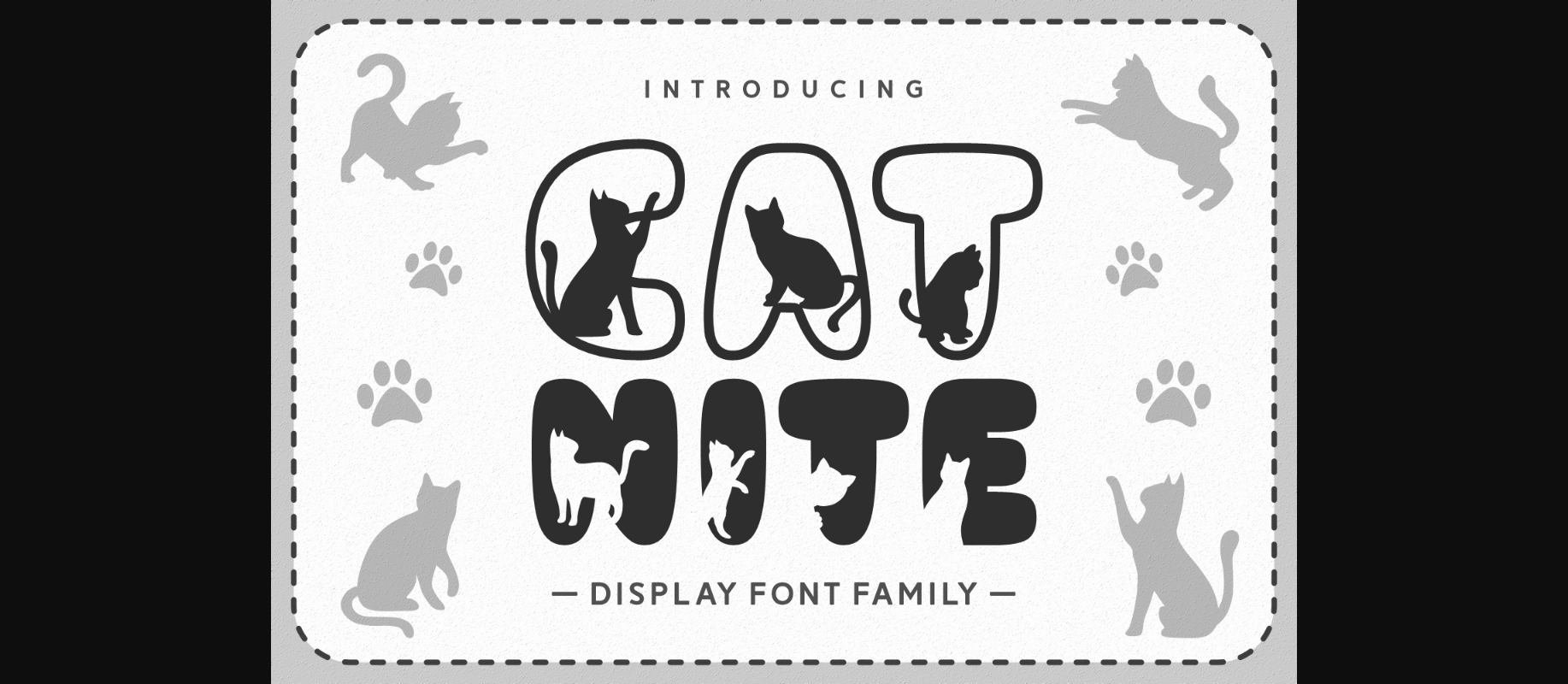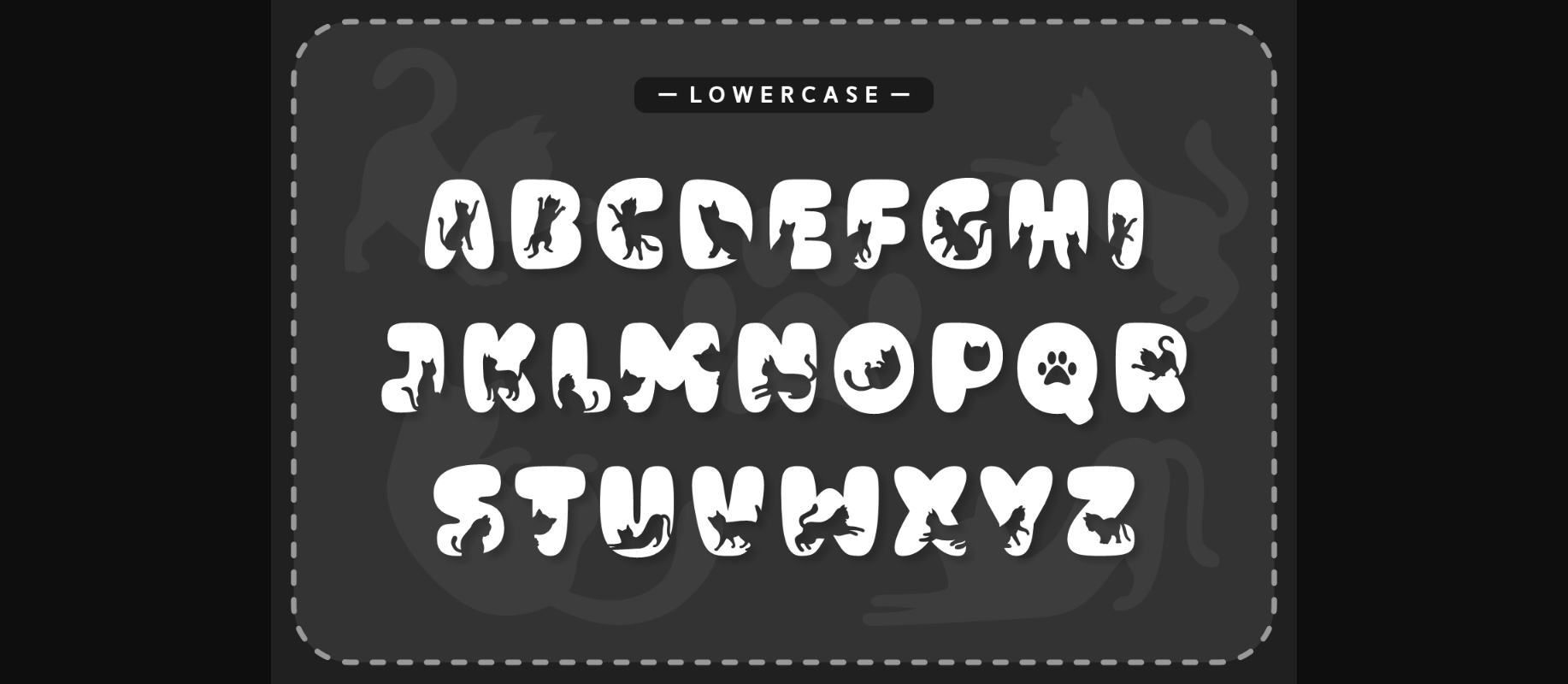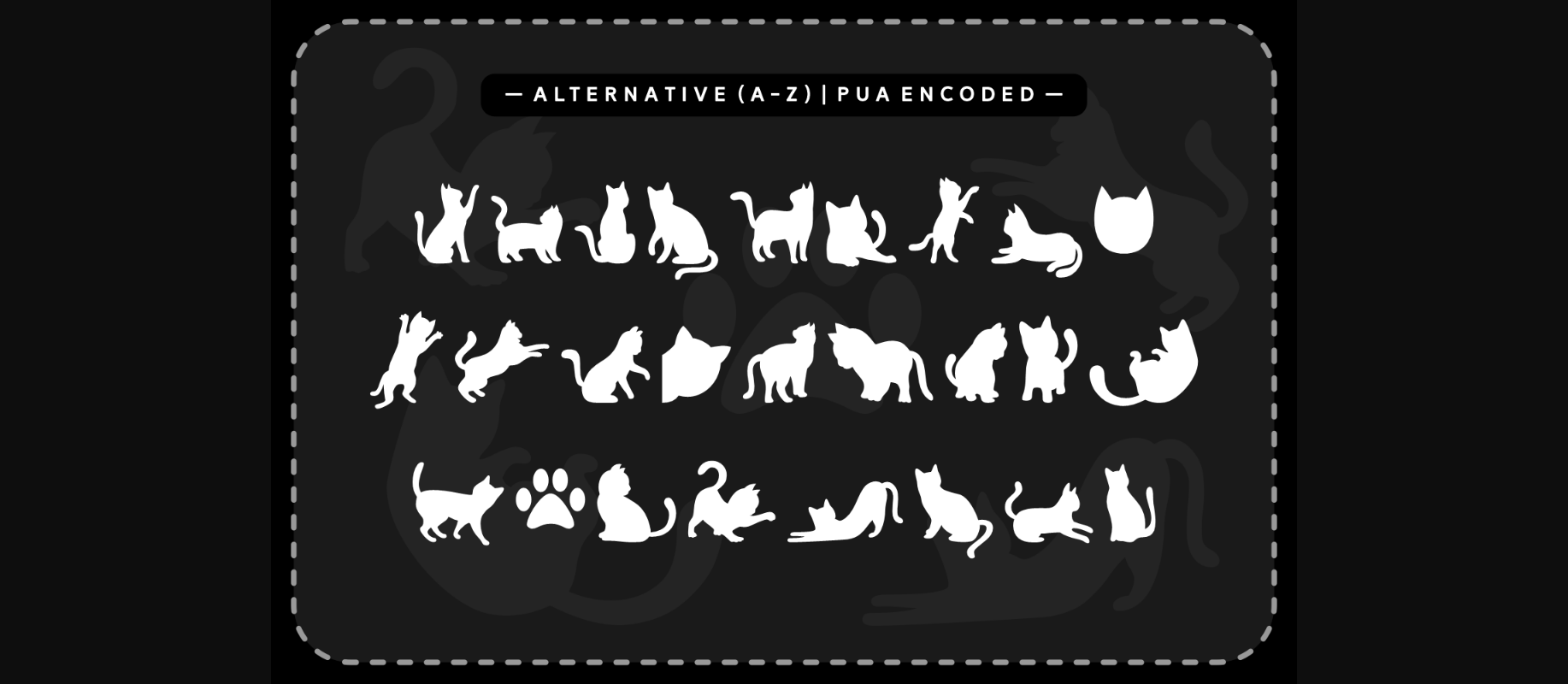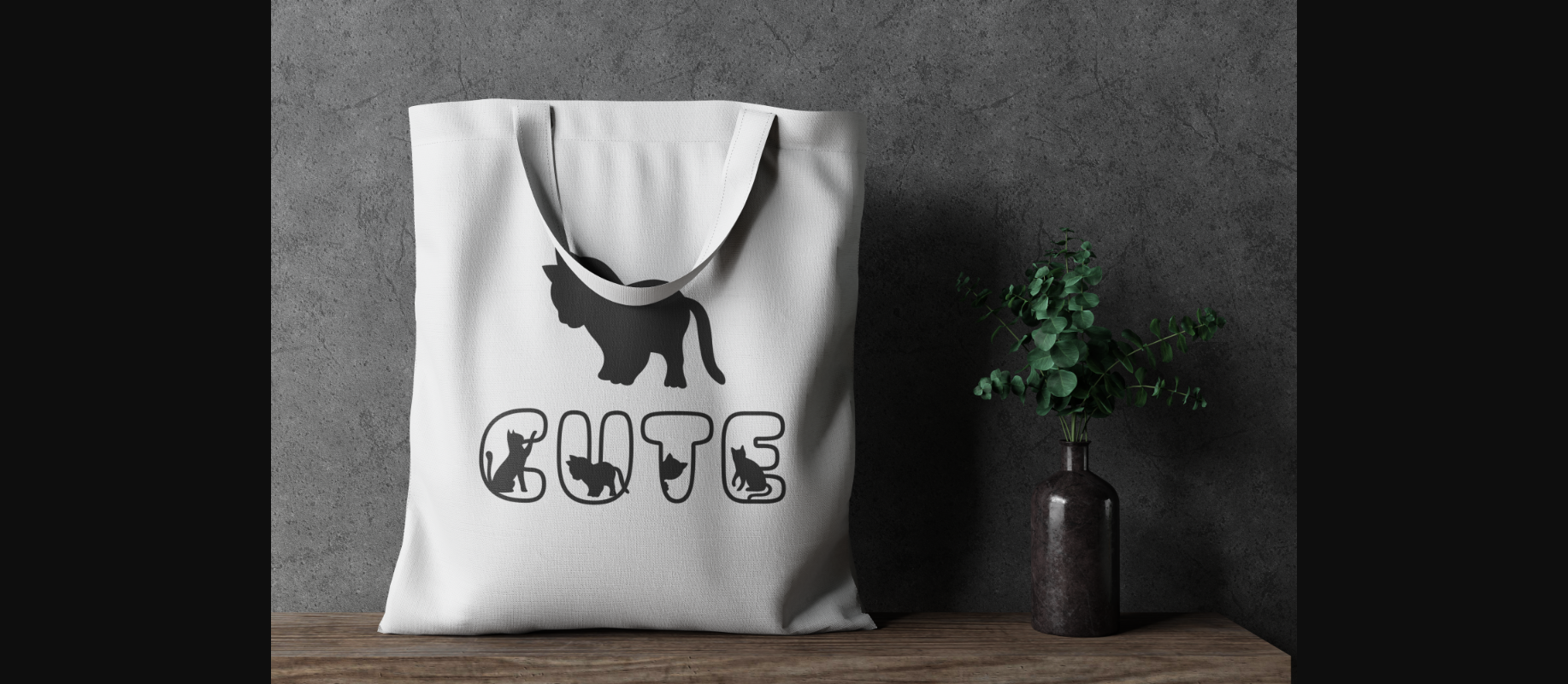
About Cat Nite Font
The Cat Nite Font is a playful and whimsical typeface inspired by our feline friends. With its curvy and stylized letterforms, it adds a touch of charm and character to any design. Perfect for children’s books, pet-related projects, or any creative endeavor that needs a dose of delightful meow-factor.